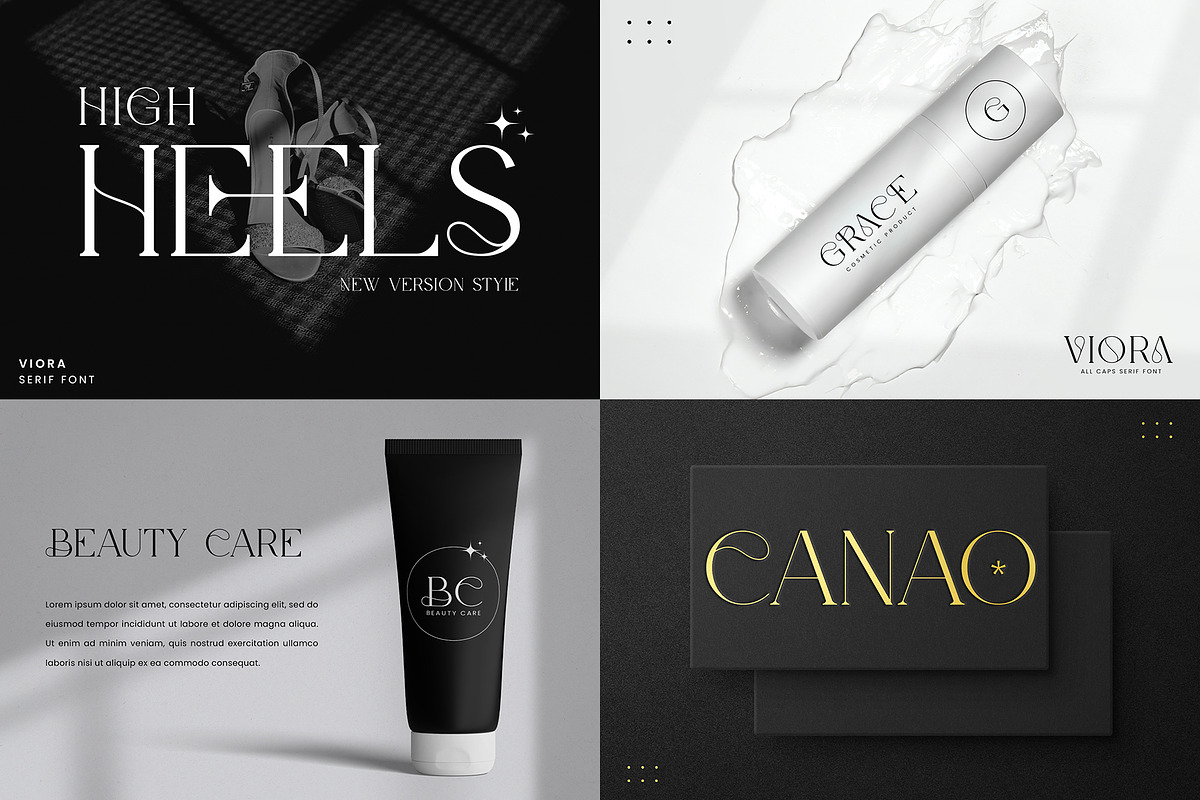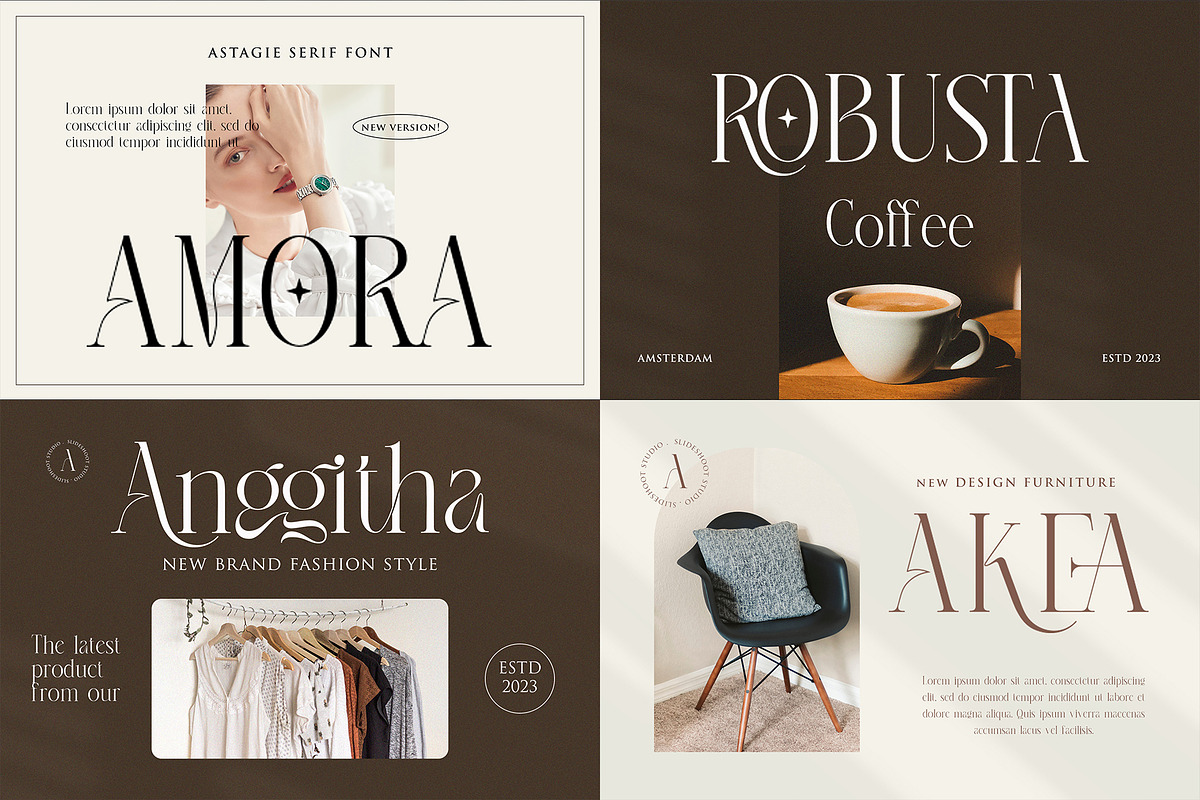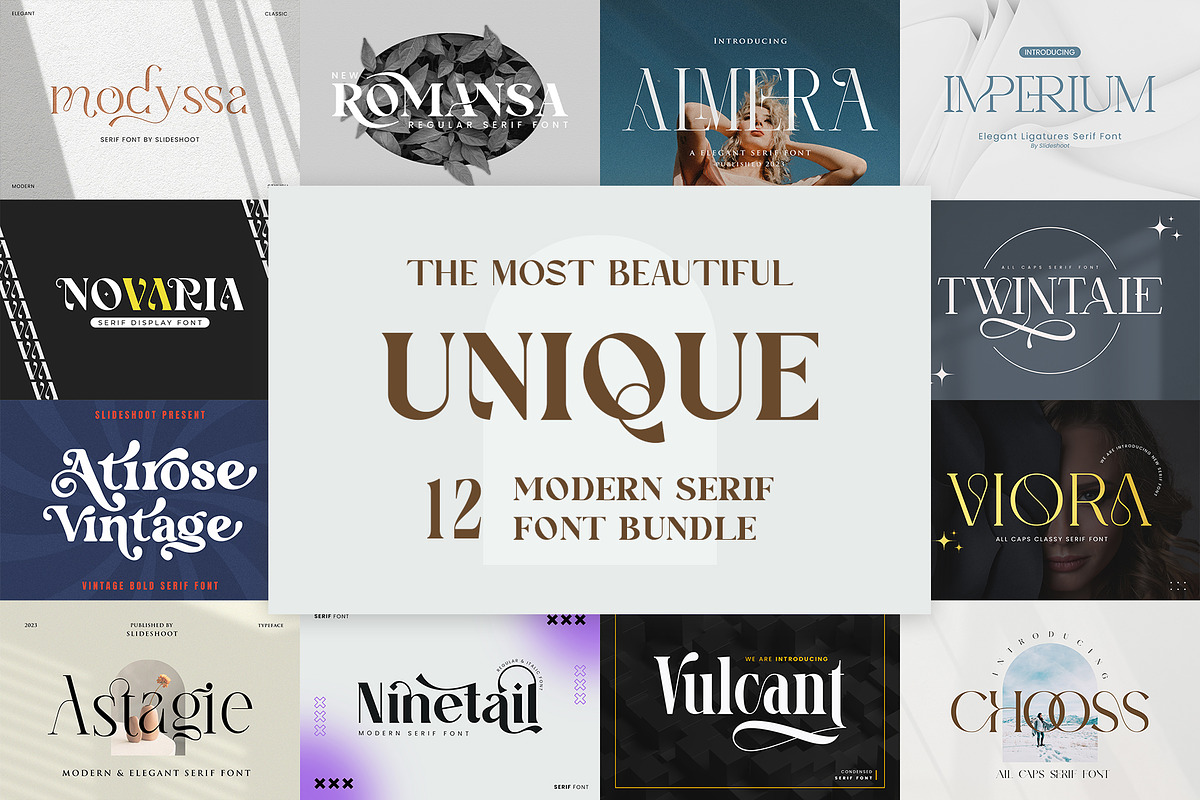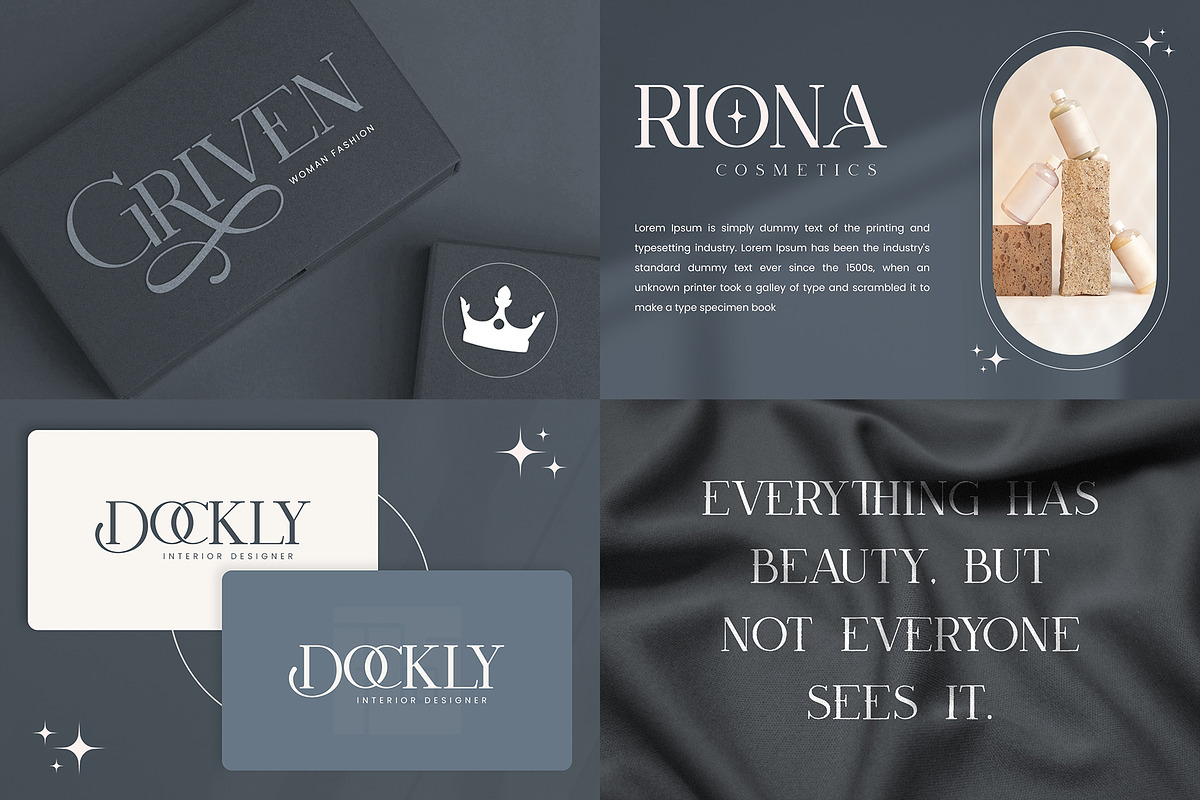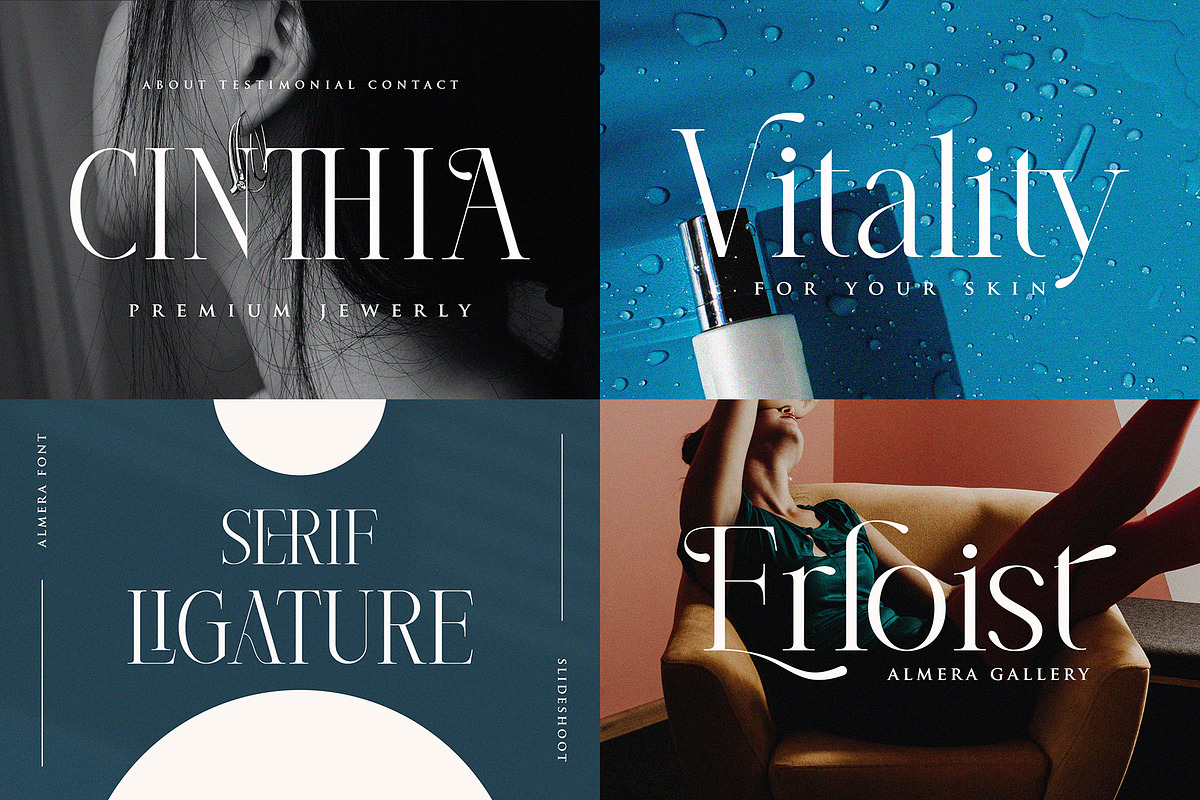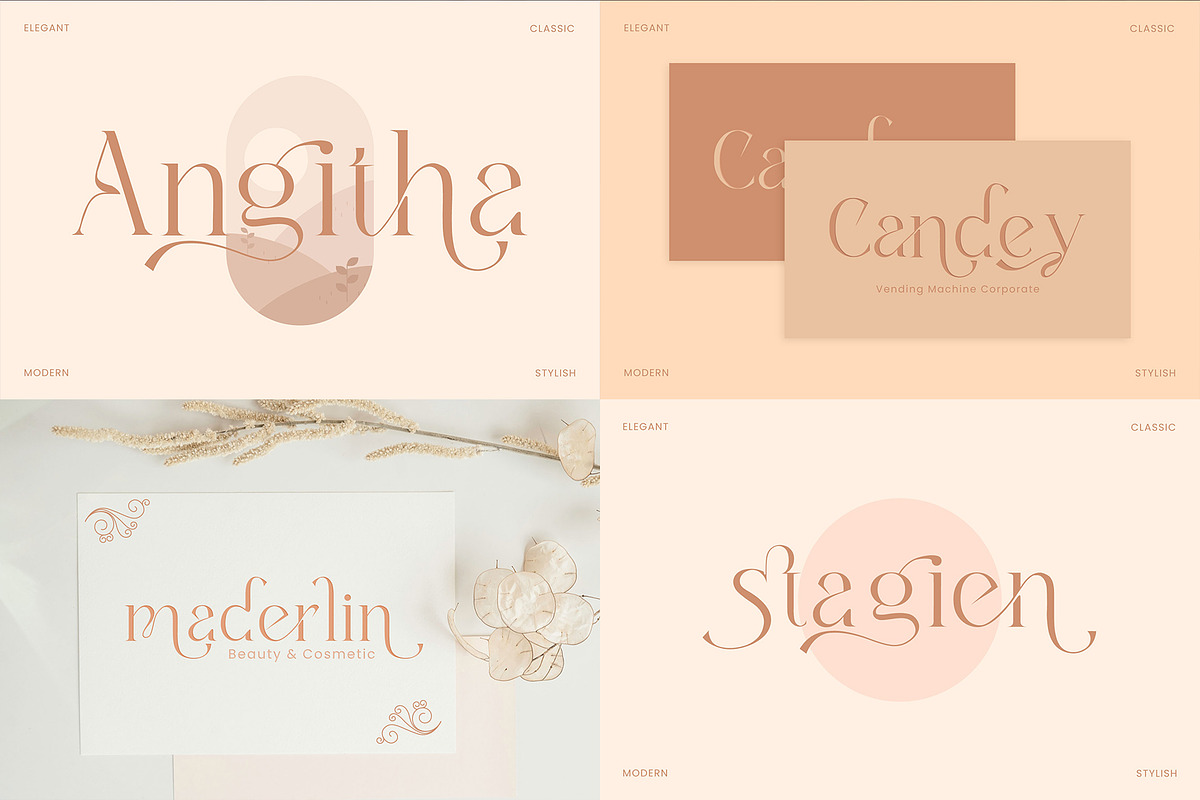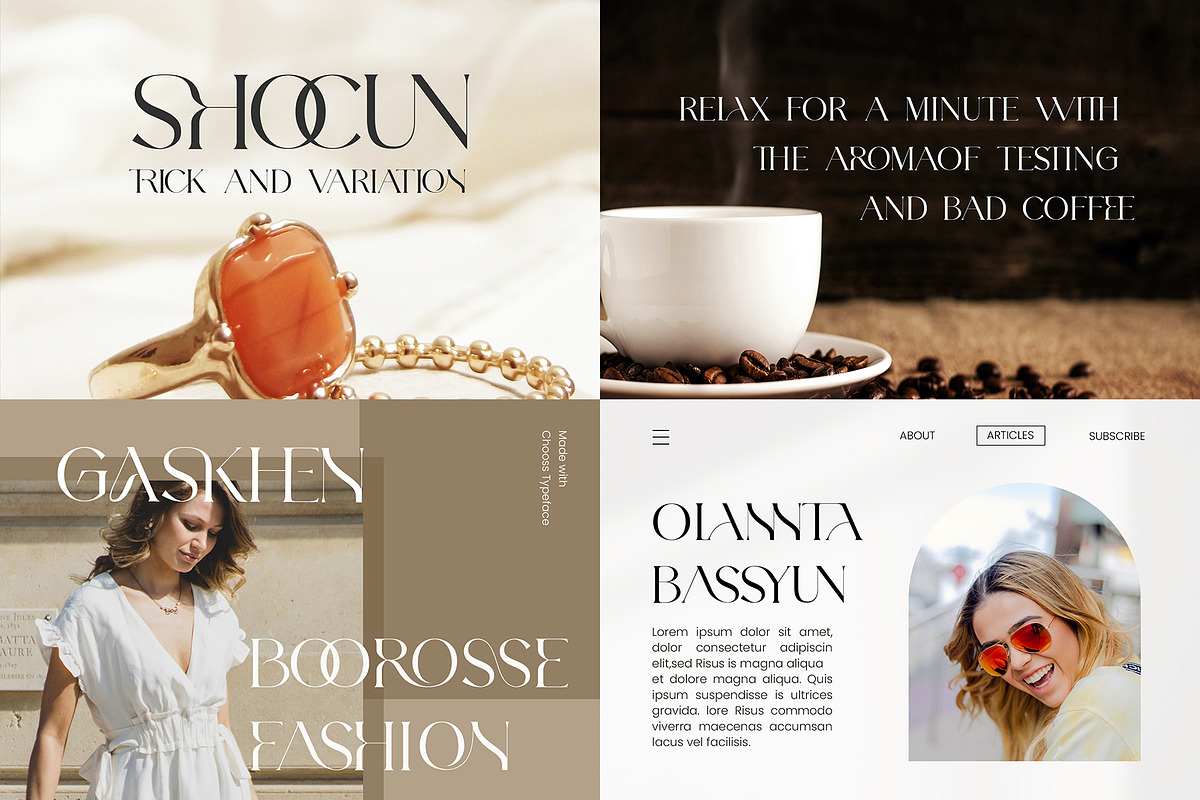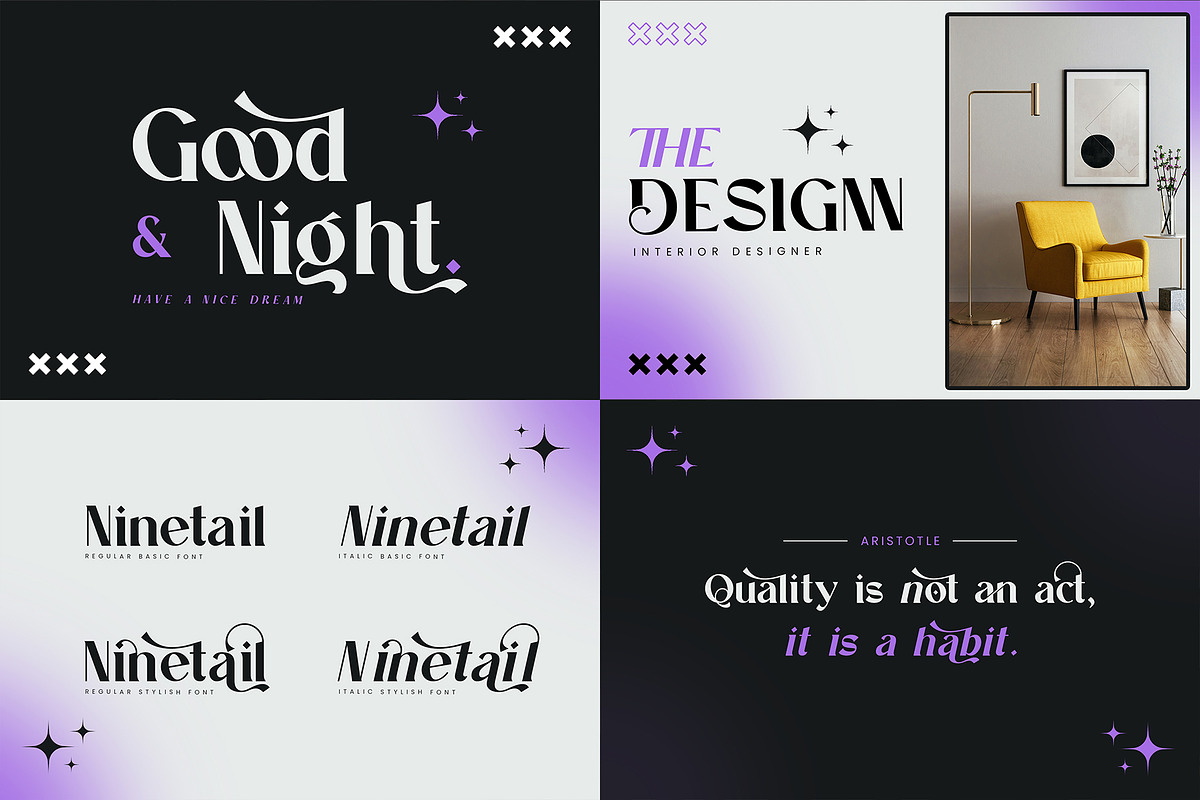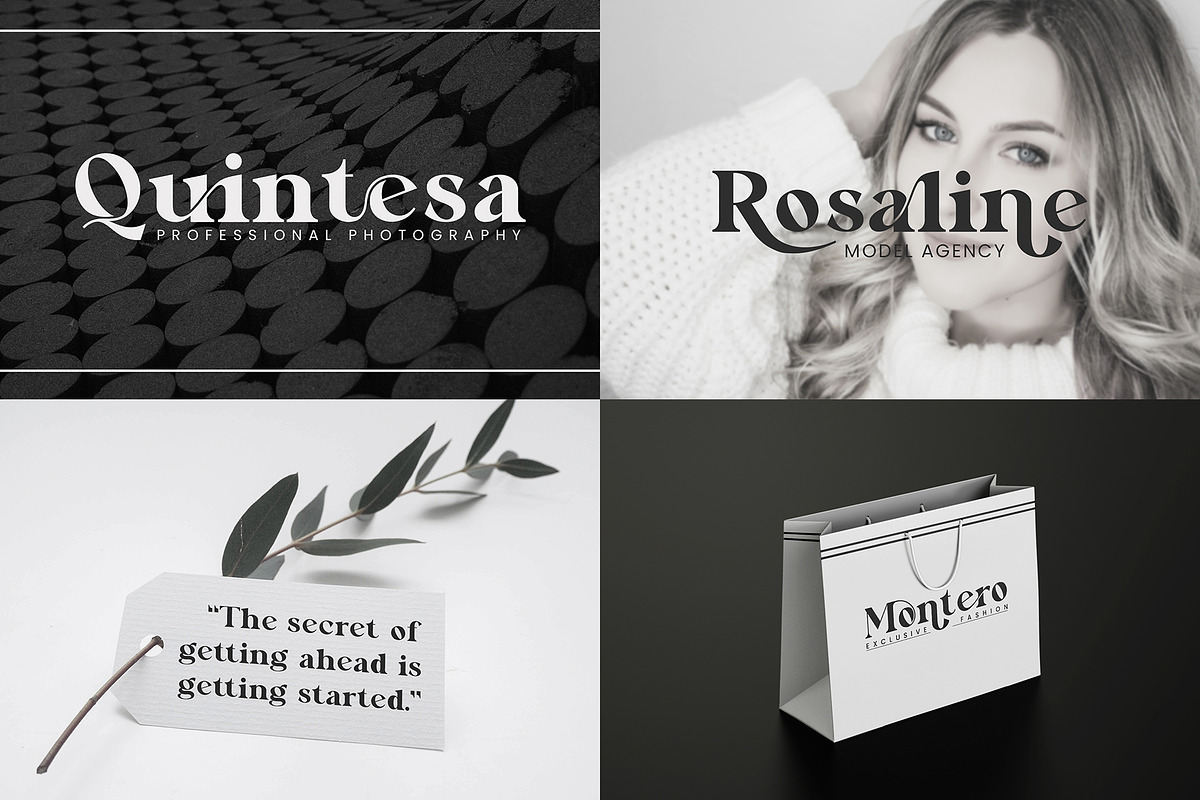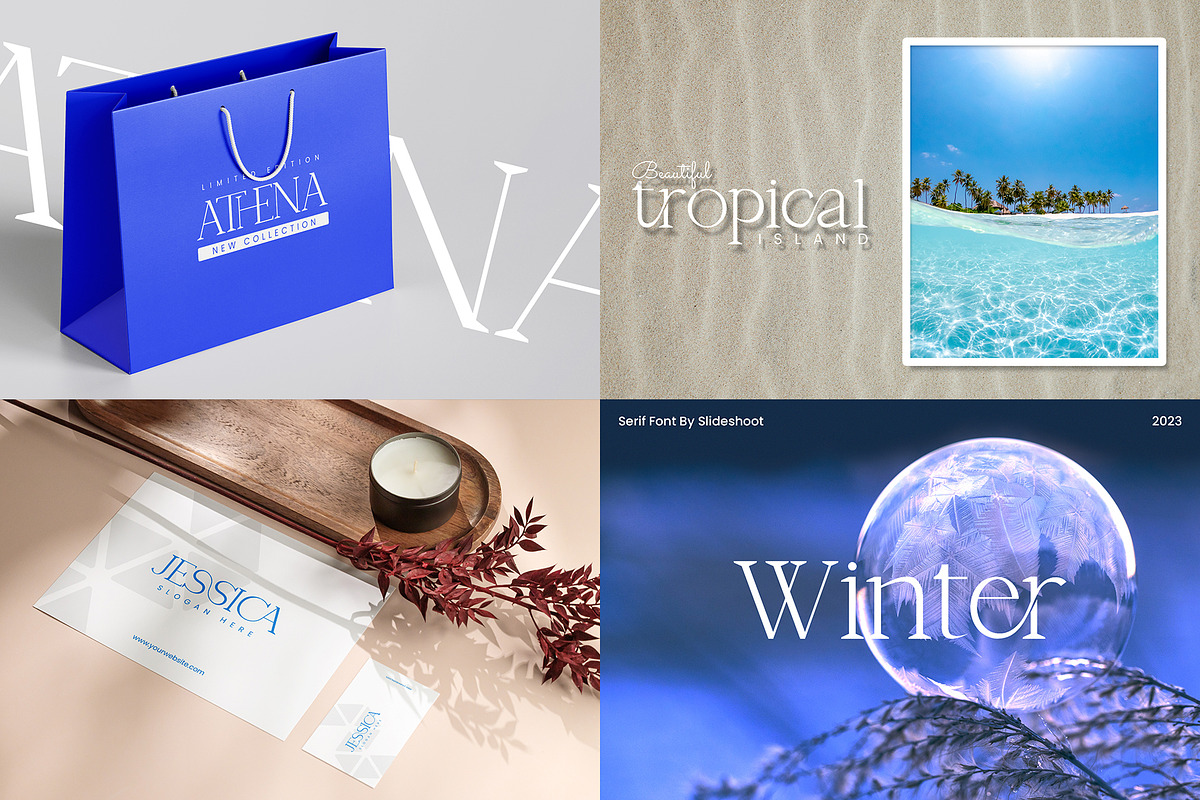
The Most Beautiful Unique Bundle
Collection of Unique Serif Fonts. Comes with 12 super unique fonts that are guaranteed to stand out while maintaining a sophisticated, modern feel. Unique font package is a font that is suitable for many products & invitation card designs, company logos, film titles, film names, business cards, book titles, brand names and various other designs
BEST-SELLING FONTS IN THIS BUNDLE: